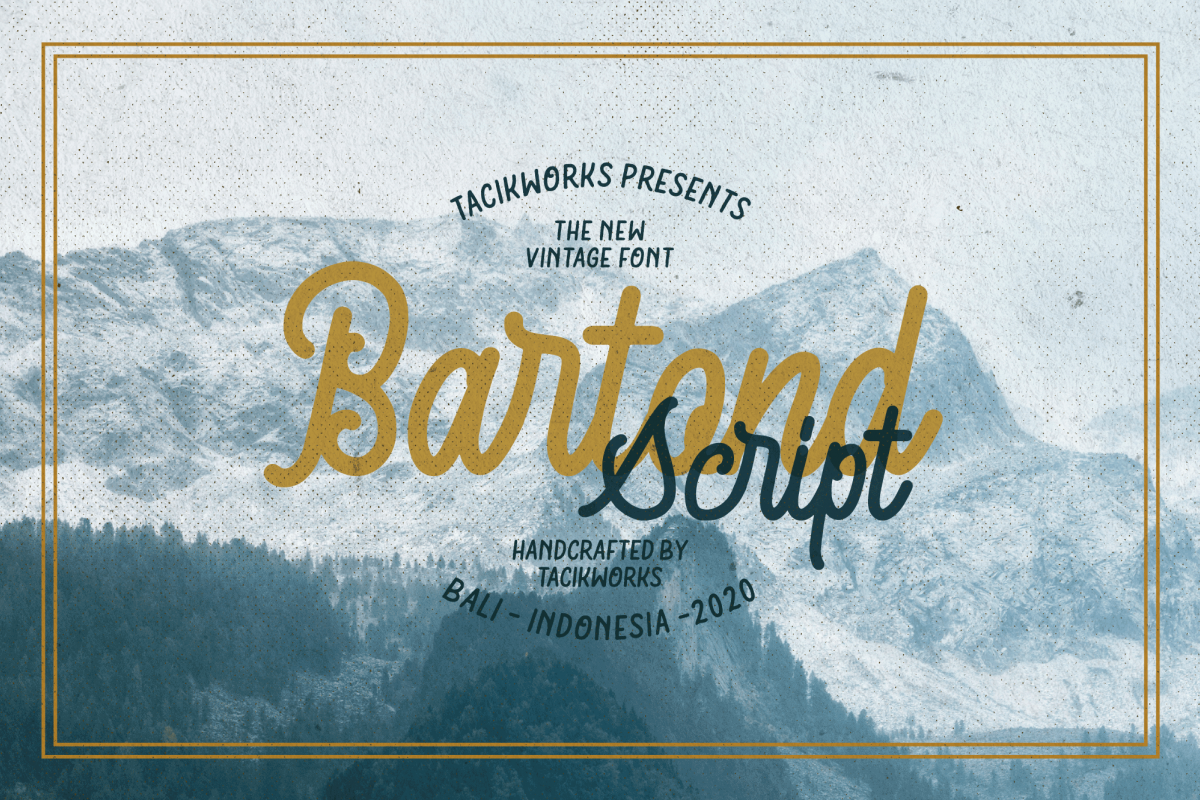
Bartond Script
Bartond Script font is inspired by vintage designs with rough lines. Make the classic impression of this font stand out more. It is suitable for creating vintage designs such as logo posters, merchandise, clothing, brochures, business cards and others.